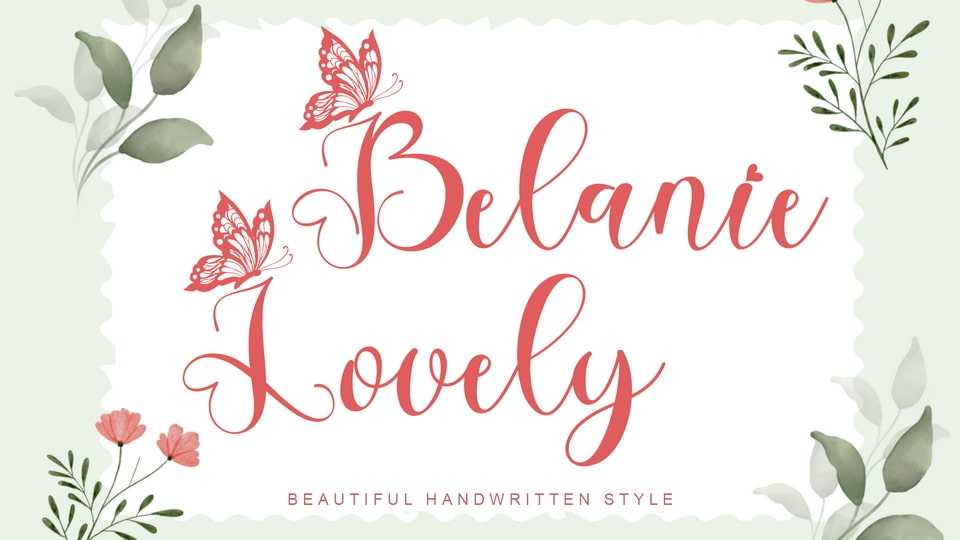
Download Belanie Lovely font, a beautiful and unique handwritten typeface with butterfly decoration on each capital letter. Very suitable for spring, summer, easter, wedding, Valentine, invitations, Christmas and others.